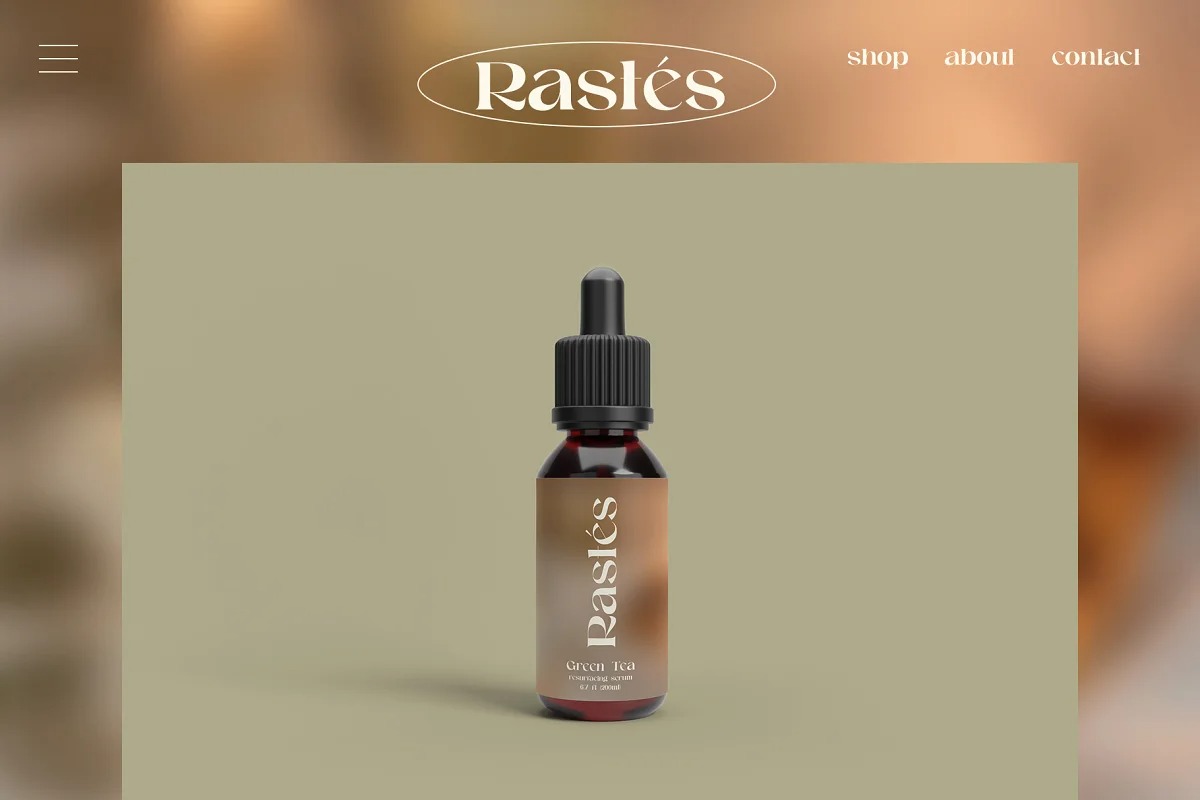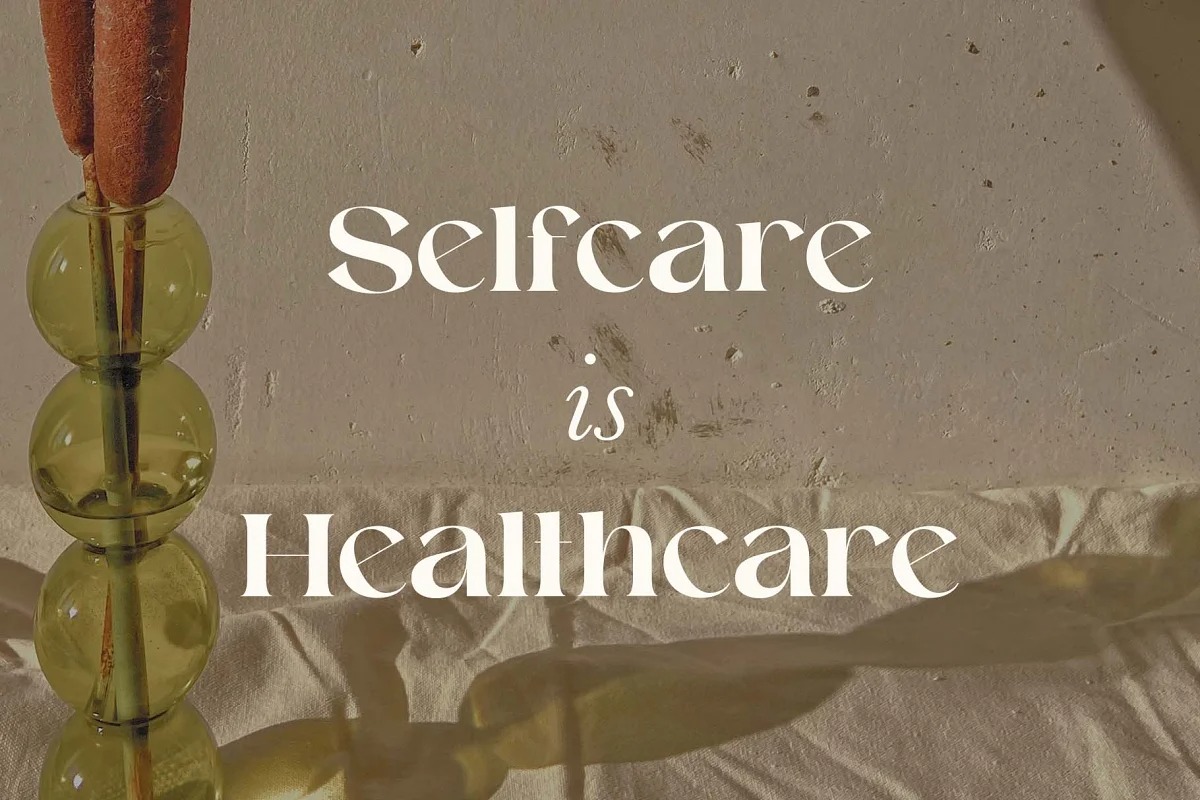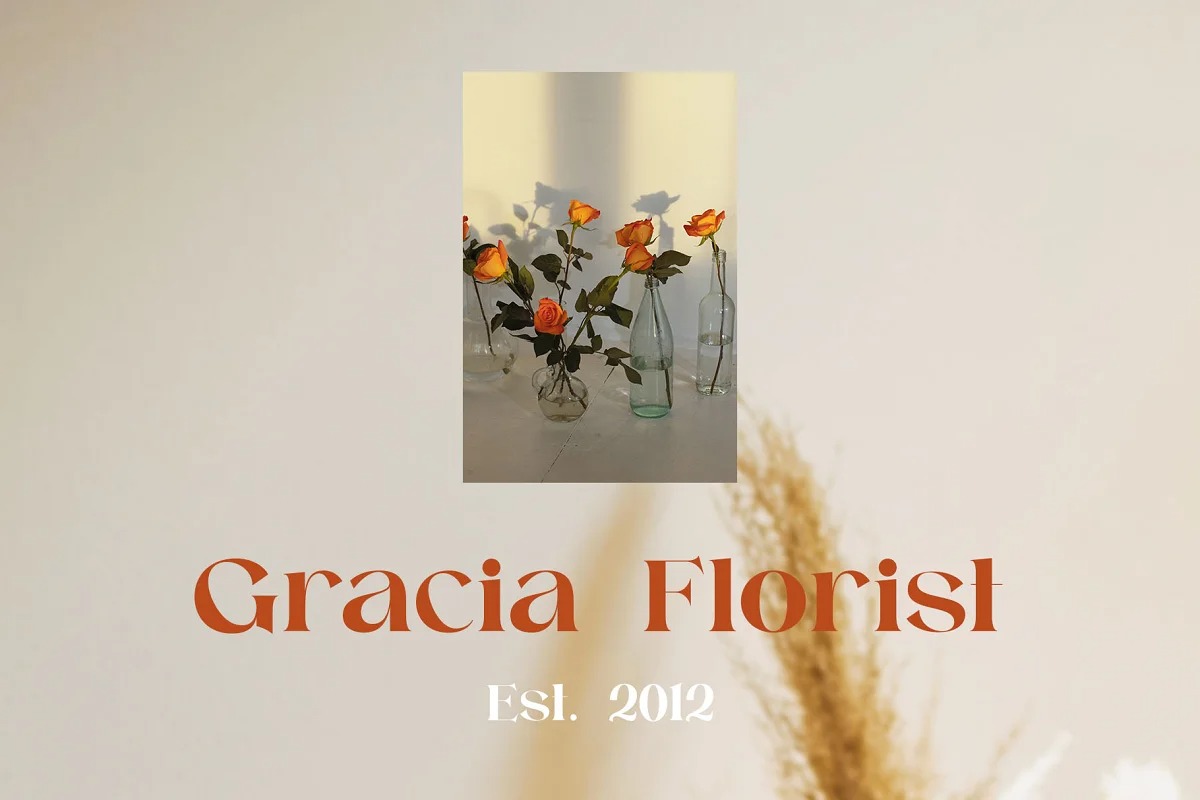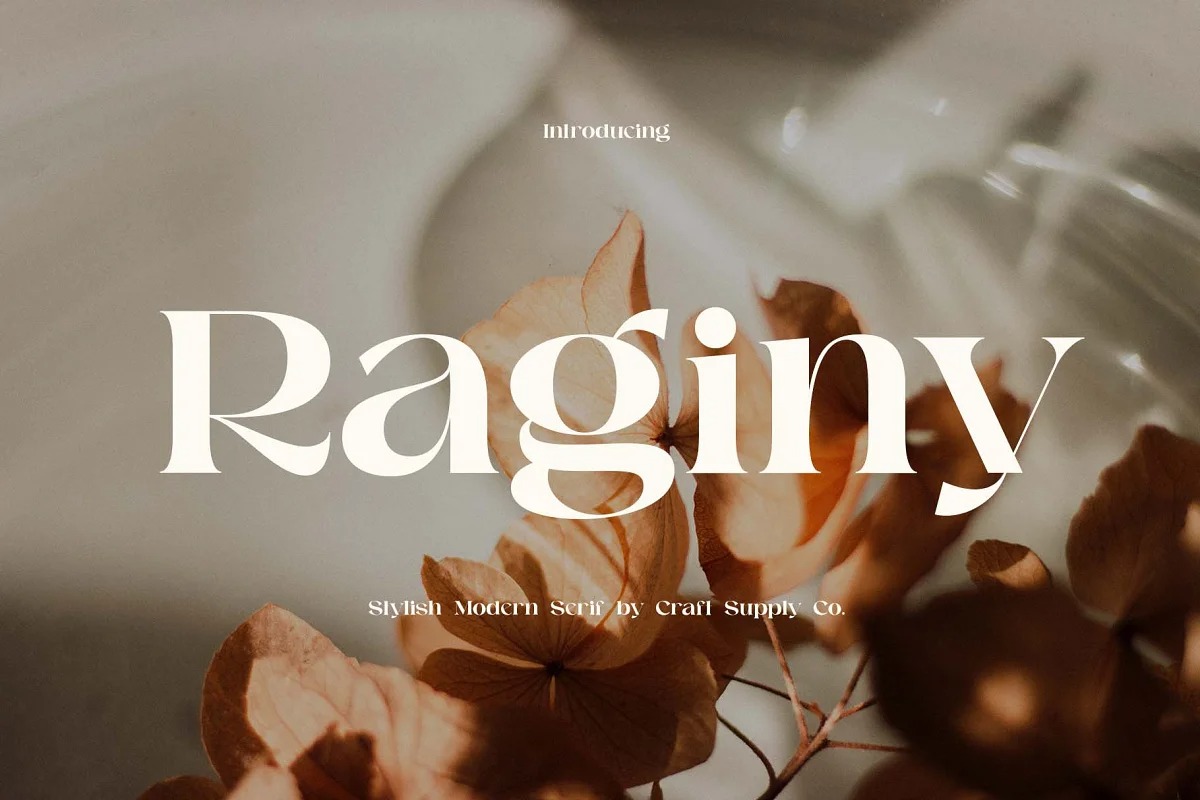
Raginy Font
Raginy Serif Font
This is a classic serif typeface created by Craft Supply Co with tight kerning. It’s a serif font with high contrast and crisp serif that make it stand out for display or short text purposes. It can be used to create almost all types of design projects like print materials. Just use your imagination and your project will become more alive and look great than ever with this typeface.